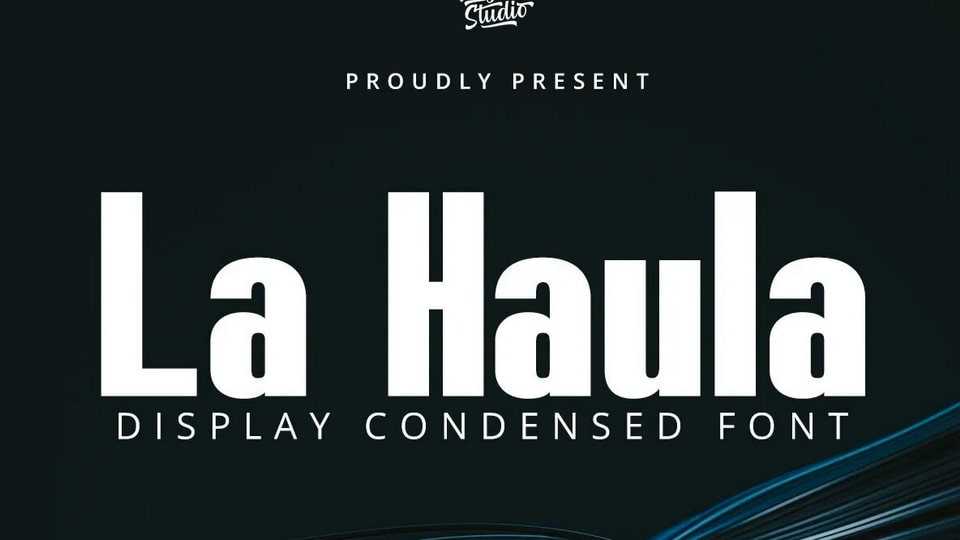
Download La Haula font, a condensed sans-serif typeface created to be used for bold titles with distinctive shapes to make it legible for contemporary use.
Designer: Mytype Studio